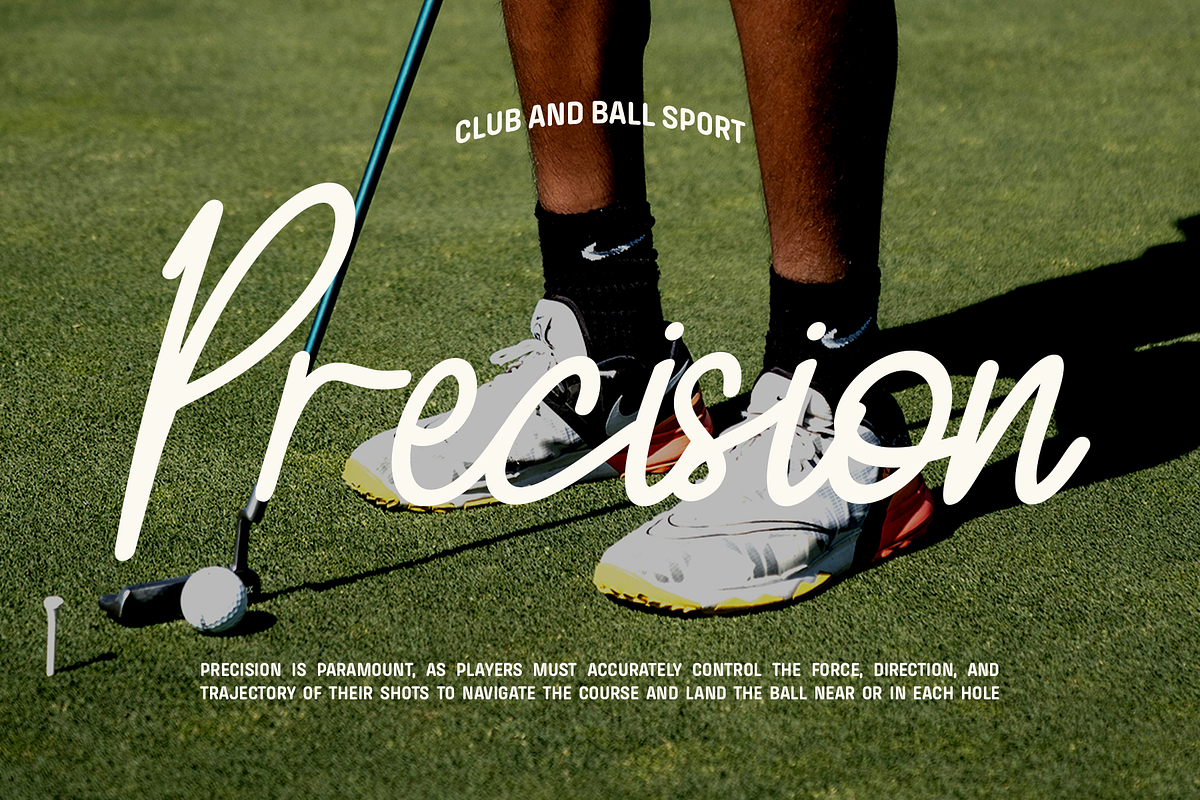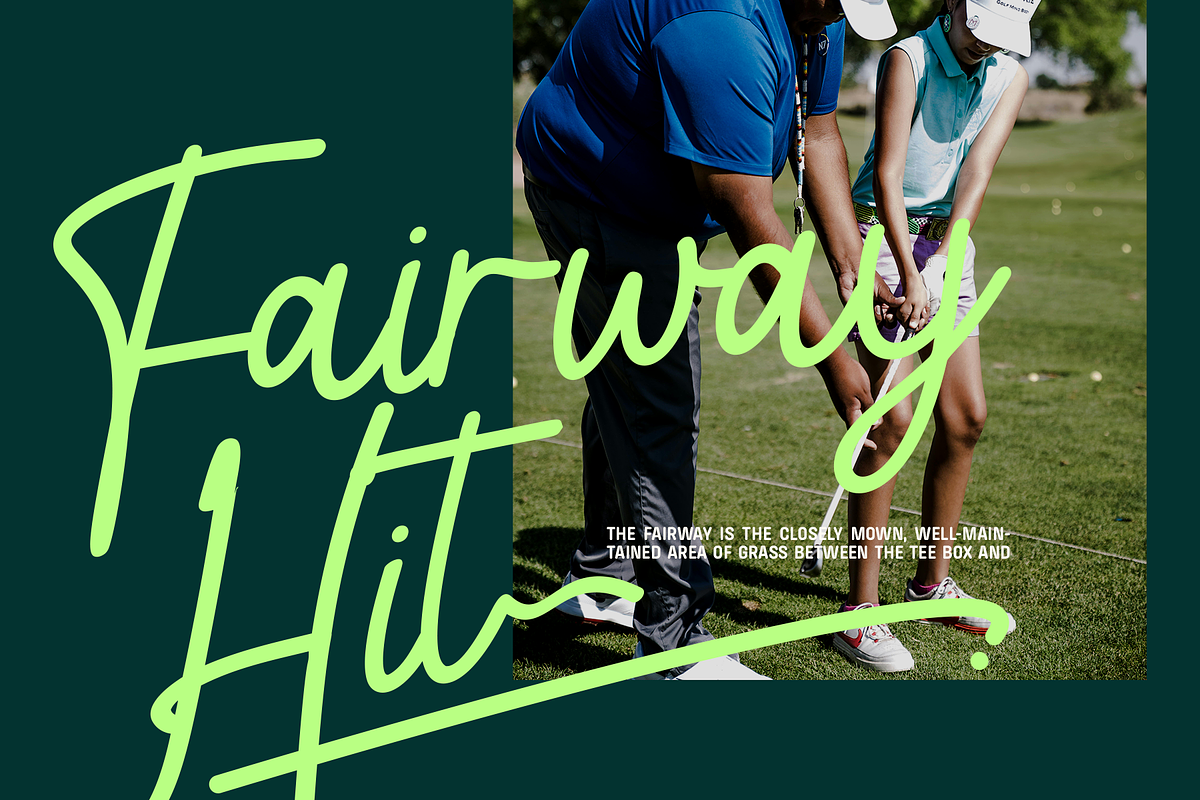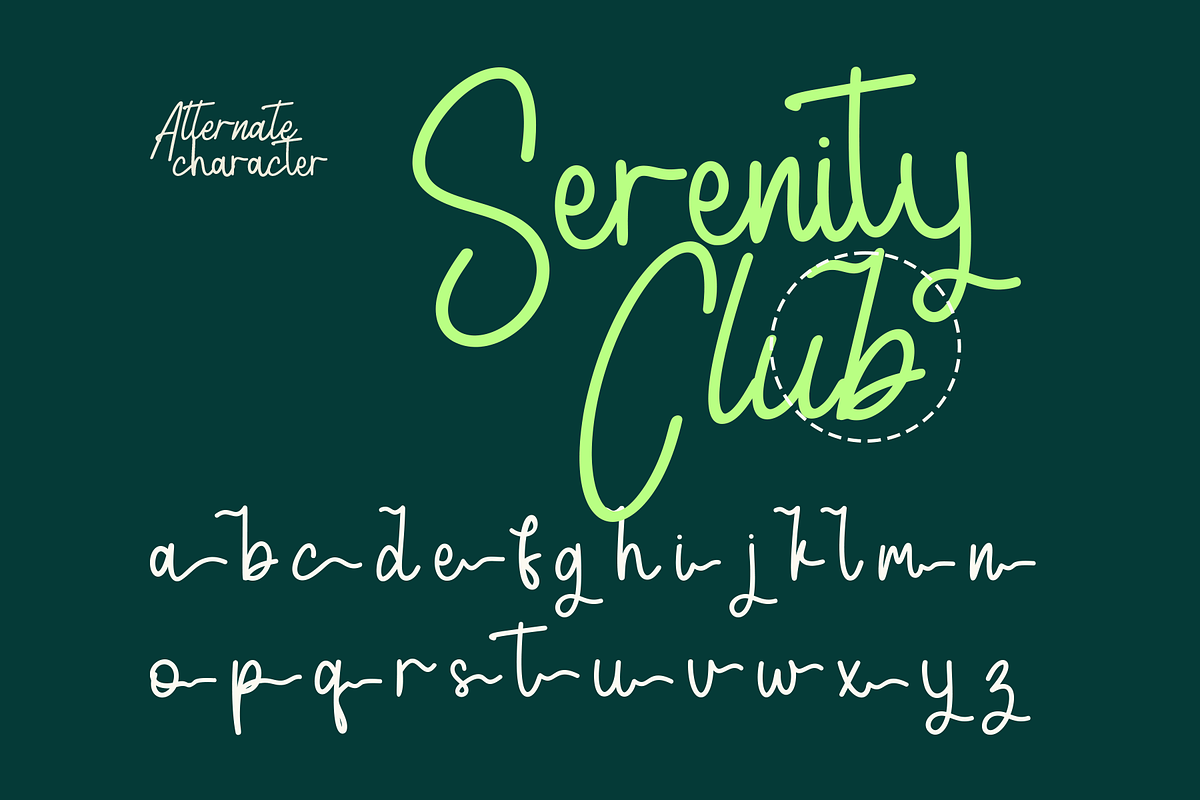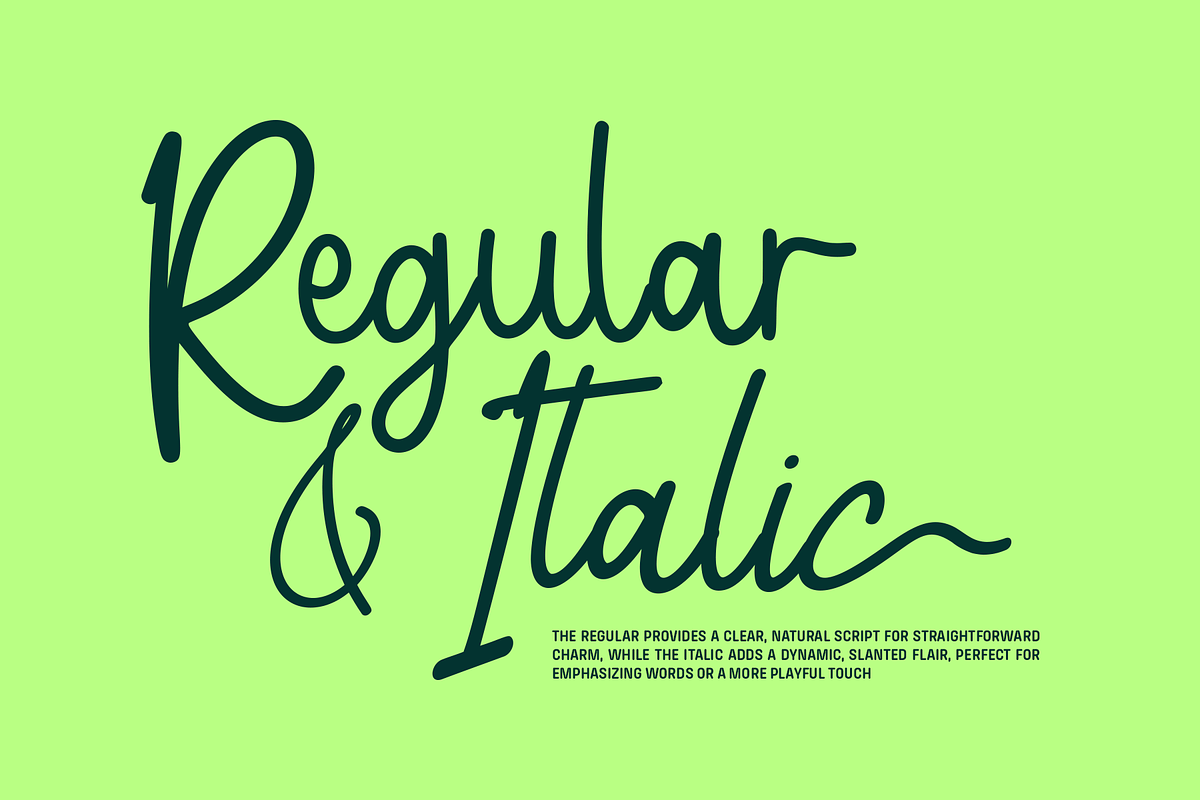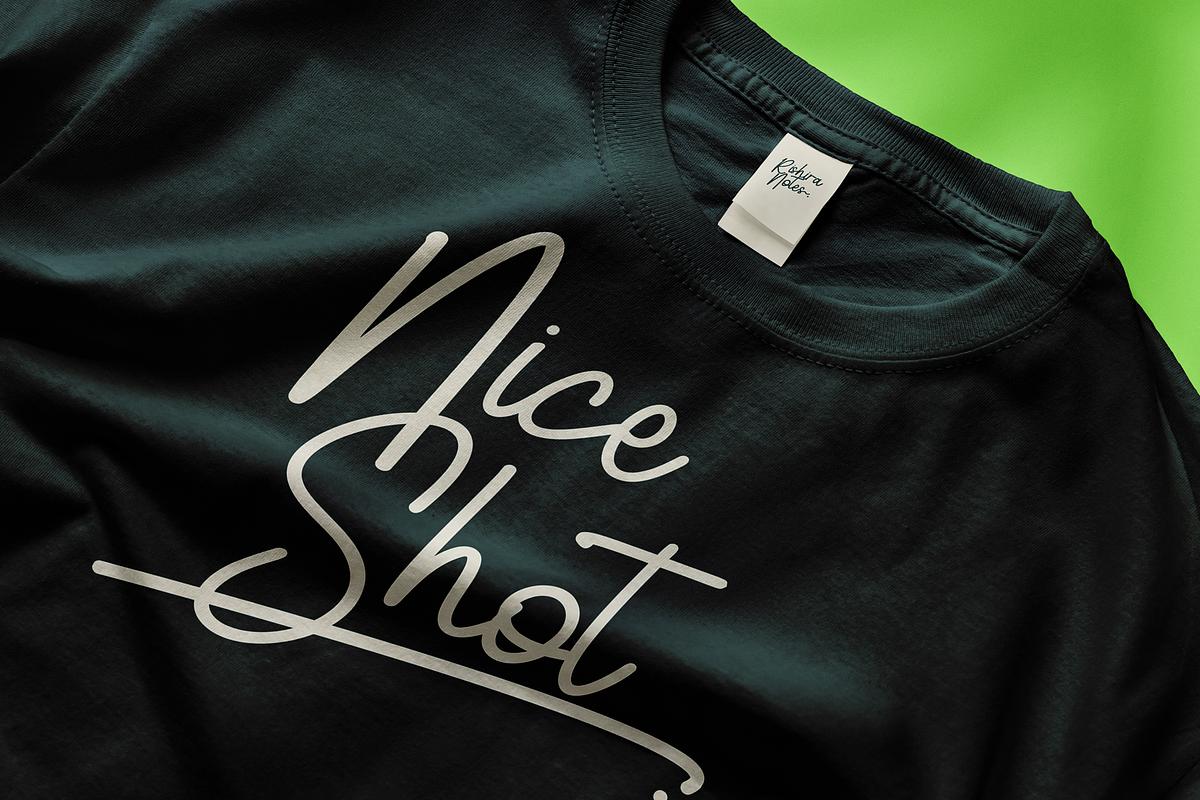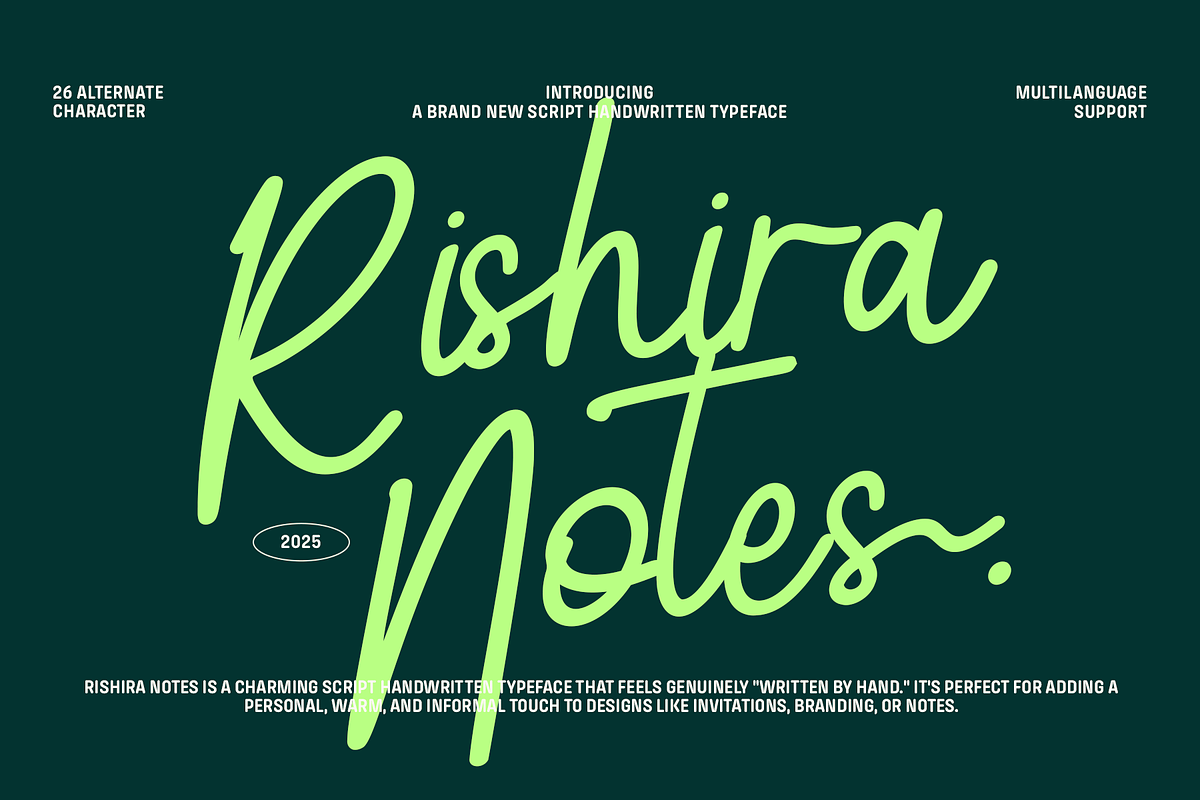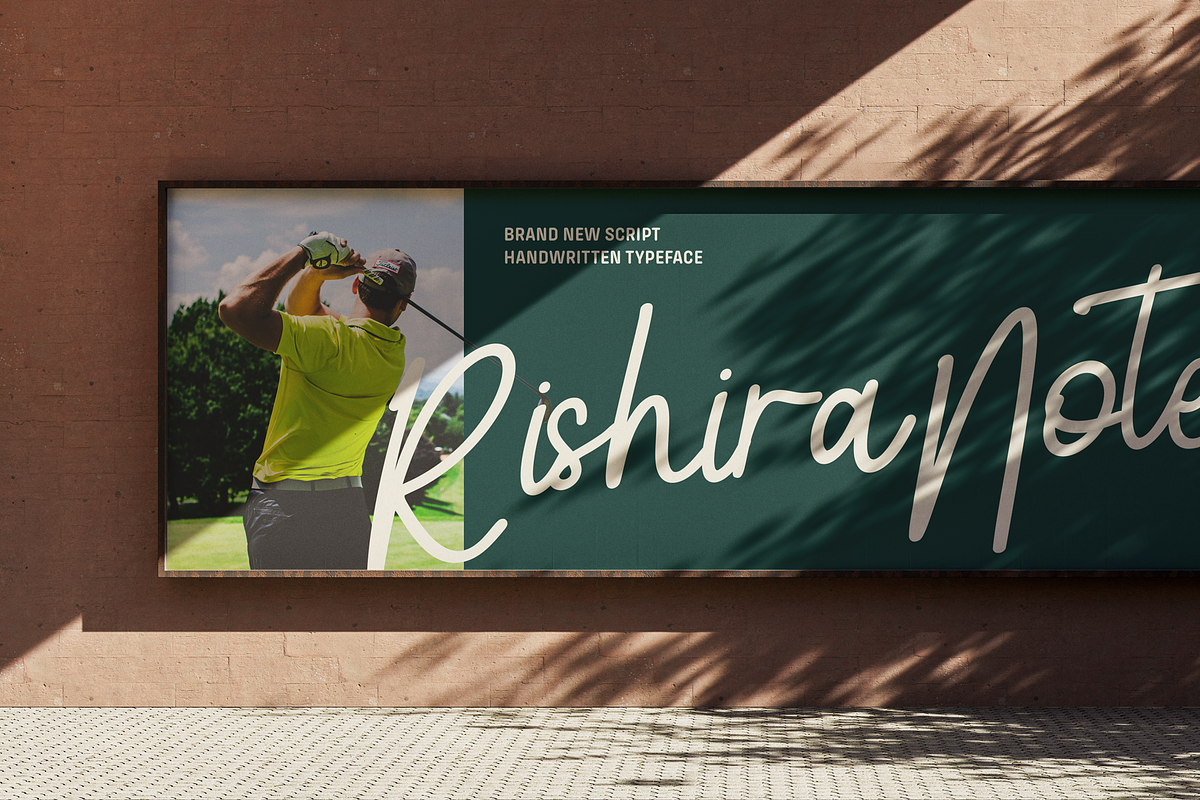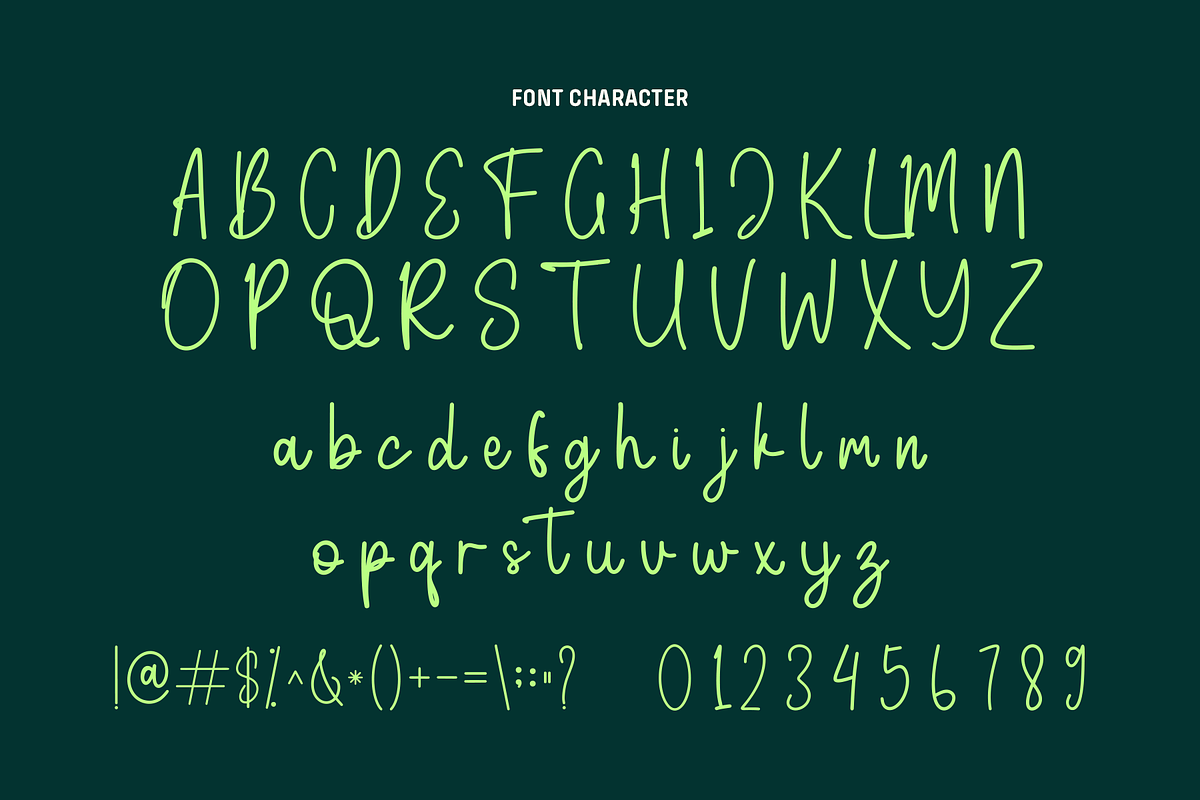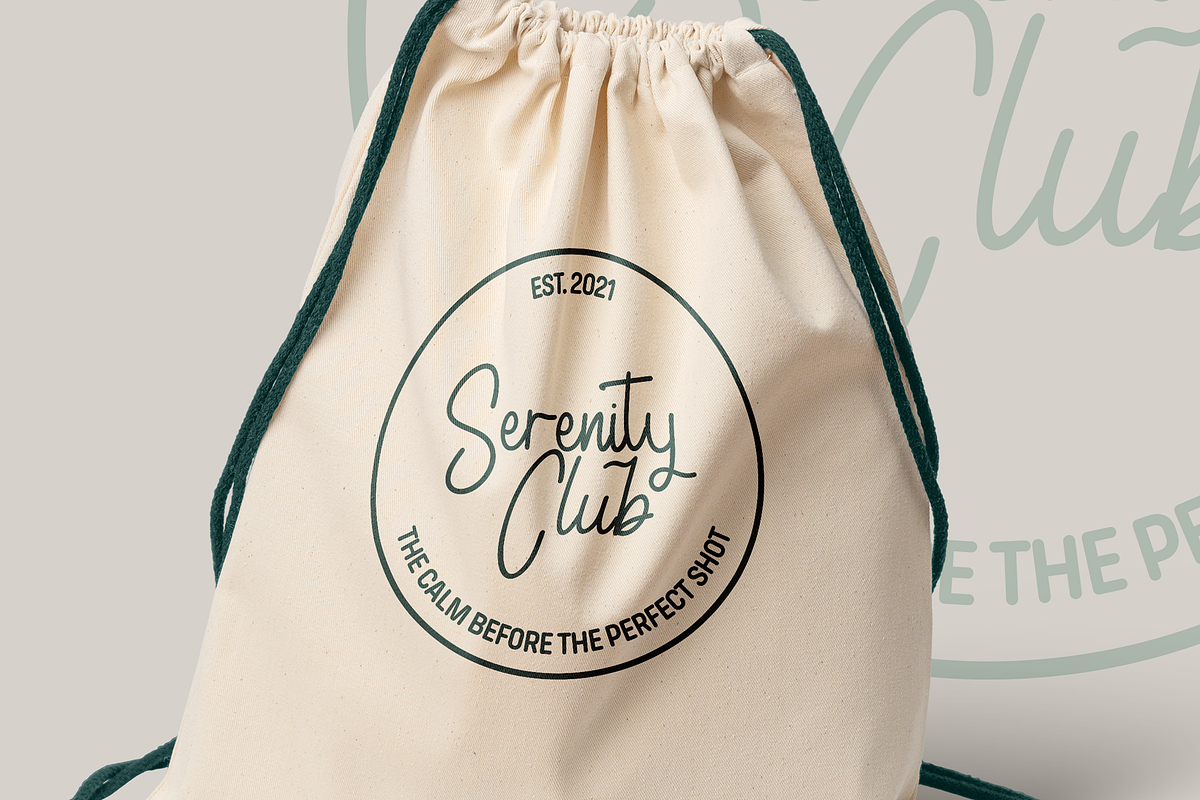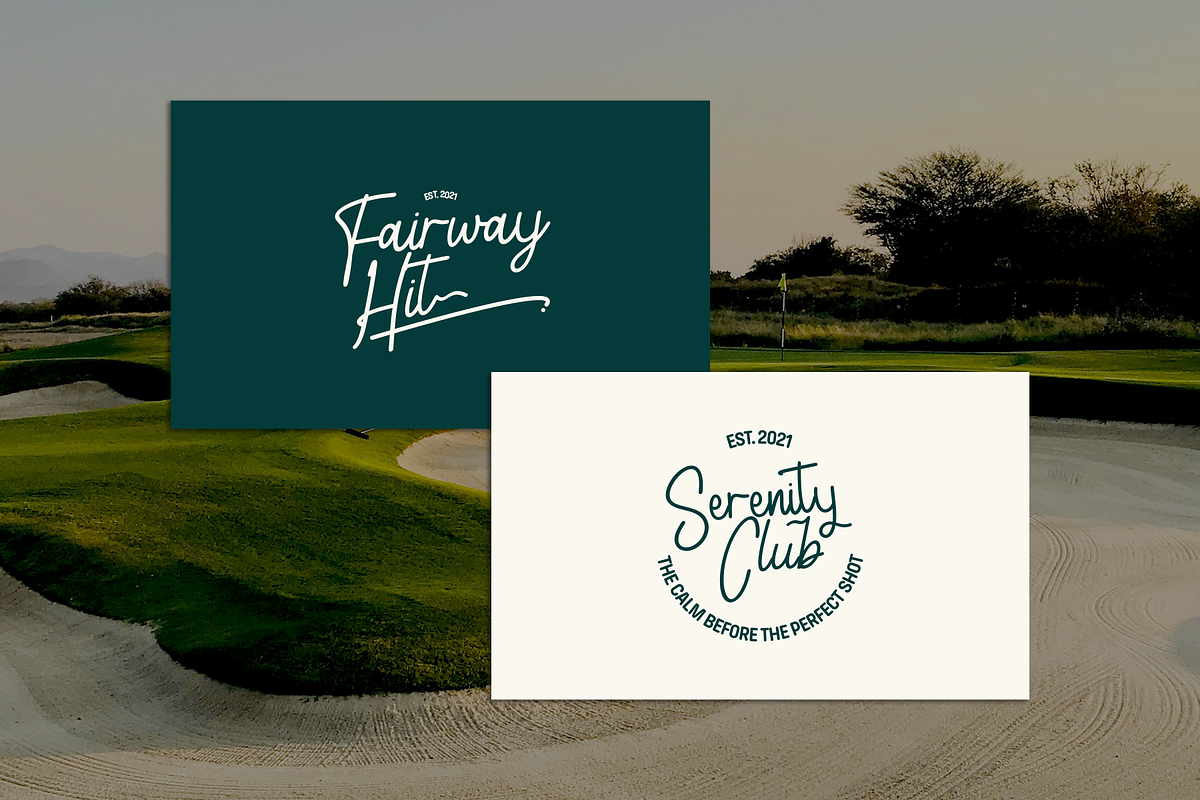
Rishira Notes - Handwritten Script
Rishira Notes is a charming script handwritten typeface that radiates warmth and personality. Designed to look genuinely “written by hand,” it brings a human, heartfelt touch to your visual projects. The natural letterforms and smooth strokes give it an approachable feel, making it ideal for invitations, greeting cards, personal branding, social media graphics, quotes, or journal-style designs. With 26 alternate characters, Rishira Notes offers playful variation and flexibility to make your layouts feel fresh and unique every time.